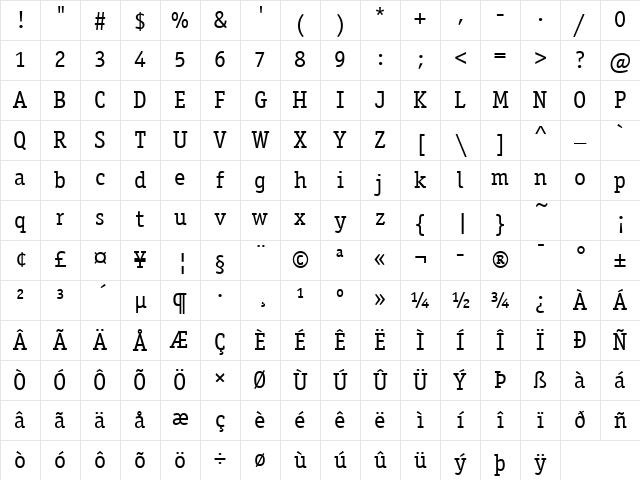
Officina Serif ITC TT Book
Complete Officina Serif ITC TT Book glyph index. Displaying only characters natively supported by Officina Serif ITC TT Book font.
Design Context for Officina Serif ITC TT
Officina Serif ITC TT carries the refined structure of traditional serif typography, with bracketed terminals and considered proportions that communicate credibility and craft.
Pro Tip: Use Officina Serif ITC TT for editorial body copy and considered headline work. Pair with a neutral sans for UI elements or captions to create a classic hierarchy.